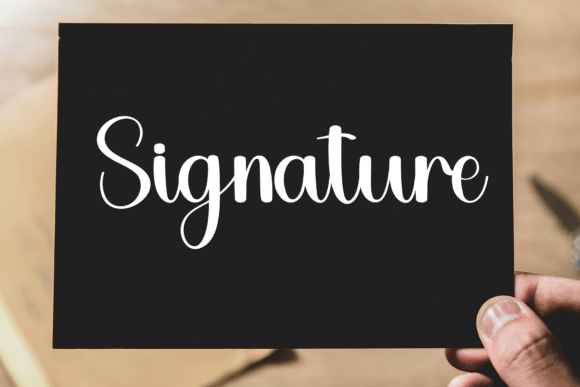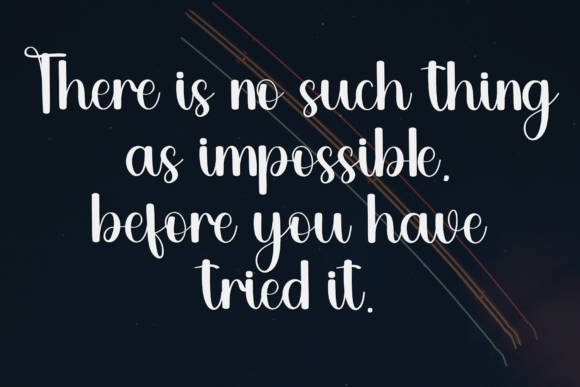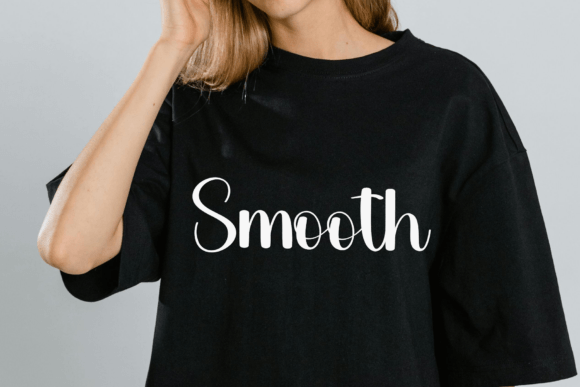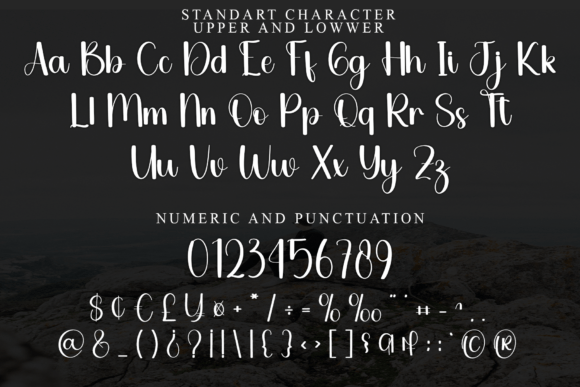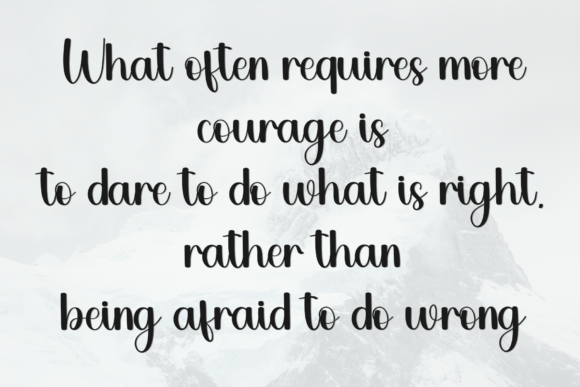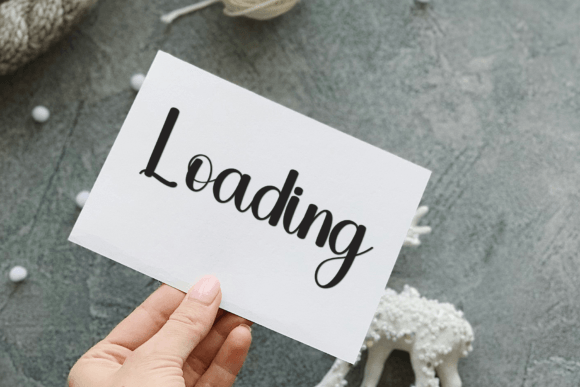
Discover the Unique Charm of Anythink Font: Elevate Your Designs with Its Soft and Versatile Style
In the world of typography, fonts play a crucial role in conveying messages, evoking emotions, and adding personality to designs. Among the myriad of fonts available, Anythink Font stands out with its soft, unique touch and distinctive strokes, making it a valuable asset for designers, crafters, and creative professionals. This article delves into the features, benefits, and applications of Anythink Font, exploring how it can enhance your design projects and creative works.
The Distinctive Characteristics of Anythink Font
Anythink Font is designed with a focus on uniqueness and aesthetic appeal. Its soft and delicate strokes set it apart from more traditional fonts, giving it a special character that can add a touch of elegance and sophistication to any design. The font’s versatility is evident in its various characters, which provide ample opportunities for creative expression. Whether you’re working on a logo, a poster, a website, or any other design project, Anythink Font offers the flexibility to adapt to different styles and themes.
Versatility Across Design Projects and Applications
One of the key advantages of Anythink Font is its wide range of applications. It is perfectly suited for design projects, crafts, and other creative works that require a unique and eye-catching typography. The font’s natural style makes it an excellent choice for designers looking to add a personal touch to their work. Moreover, Anythink Font is compatible with various applications and platforms, including Windows and open-source systems, ensuring seamless integration into your workflow.
Enhancing Your Designs with Anythink Font
Anythink Font has the power to transform your designs, making them more appealing to a broad audience across different artistic and creative fields. Its distinctive style can help you stand out in a crowded market, whether you’re designing for digital media, print, or crafting unique handmade products. By incorporating Anythink Font into your projects, you can:
- Add a Unique Touch: Differentiate your designs with a font that has a special character and soft, unique touch.
- Increase Versatility: Use Anythink Font across various projects, from digital designs to handmade crafts, thanks to its compatibility with different applications and platforms.
- Evoke Emotions: Leverage the aesthetic appeal of Anythink Font to evoke emotions and create a deeper connection with your audience.
- Enhance Creativity: Explore new creative possibilities with the font’s various characters and adaptable style.
Why Choose Anythink Font for Your Creative Projects?
Choosing Anythink Font for your design projects and creative works comes with numerous benefits. Its beautiful and eye-catching design makes it an excellent choice for anyone looking to elevate their typography. The font’s meaningful and versatile nature ensures it can be used in a wide range of contexts, from professional designs to personal crafts. Furthermore, its compatibility with various applications and platforms makes it a practical choice for designers and crafters working in different environments.
Anythink Font is a valuable addition to any designer’s or crafter’s toolkit. Its soft, unique touch, distinctive strokes, and versatile style make it an excellent choice for a wide range of design projects and creative works. By incorporating Anythink Font into your workflow, you can enhance your designs, evoke emotions, and connect with your audience on a deeper level. Whether you’re working on a professional project or a personal craft, Anythink Font offers the perfect blend of aesthetic appeal and practicality to bring your creative visions to life.
Embrace the unique charm of Anythink Font and discover new possibilities for your designs. Explore its features, benefits, and applications to see how it can elevate your creative projects and help you achieve your artistic goals.